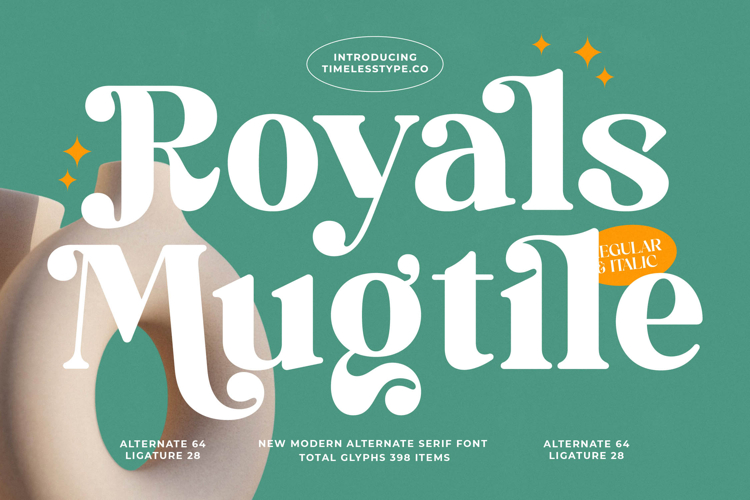
Royals Mugtile - Modern Alternate Serif Font
Elevate your design projects with the captivating allure of Royals Mugtile - Modern Alternate Serif Font. This exquisite typeface masterfully blends contemporary aesthetics with timeless elegance, featuring a bold yet graceful presence. Its high-contrast strokes and distinctive serifs create a visually striking impression, ensuring your text commands attention with sophisticated charm and modern flair.
Unlock unparalleled design flexibility through Royals Mugtile - Modern Alternate Serif Font's rich character set, including numerous alternates and ligatures. This allows for truly custom and expressive typography, perfect for creating unique visual narratives. It is ideally suited for luxury branding, high-end packaging, editorial design, fashion labels, sophisticated invitations, and impactful web headlines that demand a touch of refined class.
Expand your global reach and communicate with seamless elegance. With its extensive multilingual support, Royals Mugtile - Modern Alternate Serif Font adapts seamlessly across global markets, making it incredibly versatile for international projects. Its carefully crafted letterforms maintain their distinctive appeal and readability, ensuring a consistent and professional brand voice across diverse linguistic landscapes.